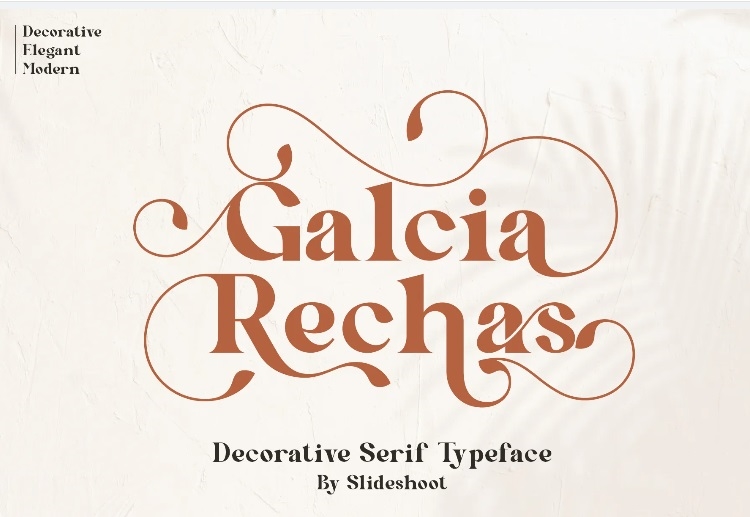
Galcia Rechas Font
Galcia Rechas Serif is modern, readable and neutrality typeface that’s possesses gentleness touch of elegance and style in serif. He is character and nice accessories. Ideal to accompany invitation card designs, corporate logos, movie title, movie name, business cards, book title, brand and many other designs.
Galcia Rechas Serif is polished serif that inspires maturity and sophistication of the typeface. The stylish switch and the binding of the font make it the ideal companion for all sorts of work.
Galcia Rechas Serif Font